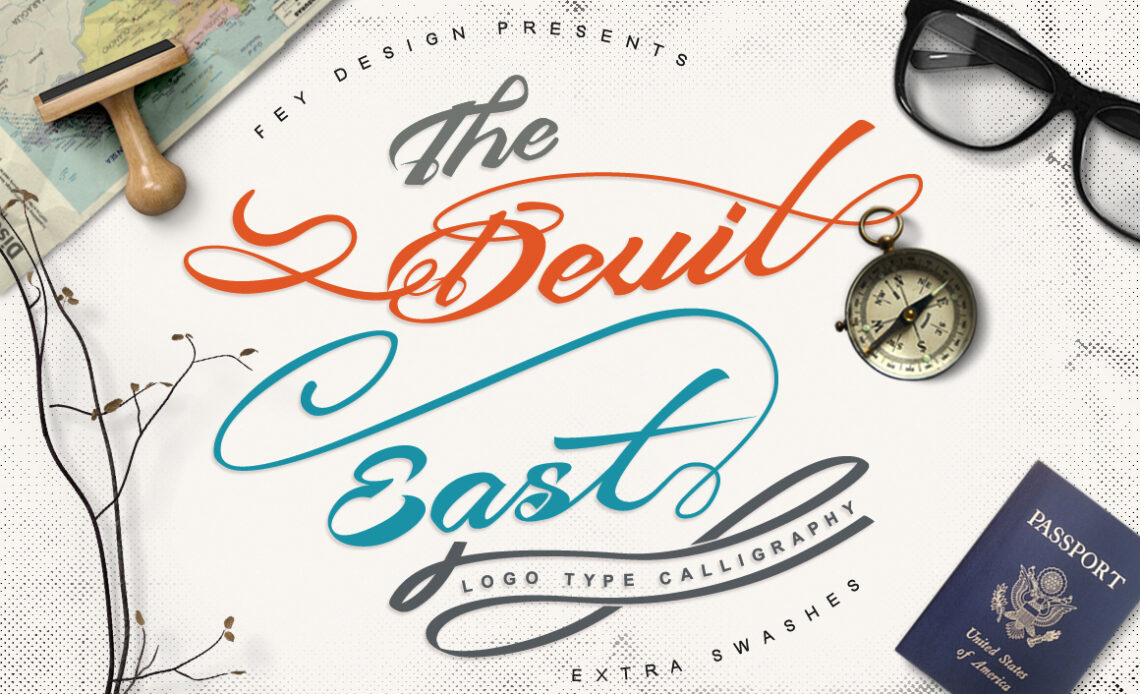
Introducing Devil East Font, a script font crafted by the talented feydesign, a masterpiece that captivates with its enchanting grace and boundless creativity. This font is not just a collection of letters; it's an artistic journey that transforms your words into captivating visual symphonies.
Devil East is more than just a font; it's an expression of individuality, a reflection of your unique style. With its elegant curves and playful flourishes, this font adds a touch of magic to any project, whether it's a captivating logo, an unforgettable invitation, or a personal journal filled with your heartfelt thoughts.
Unleash your inner artist and let Devil East take you on an adventure of typographic exploration. With its vast array of decorative characters, this font opens up a world of possibilities, inviting you to create designs that are as unique as your imagination.
Let Devil East be your muse, inspiring you to craft designs that capture attention and leave a lasting impression. From enchanting logos that command presence to heartfelt invitations that evoke emotions, this font is a versatile chameleon, adapting seamlessly to your creative vision.
Experience the magic of Devil East Font today, and let your designs dance with elegance and charm.